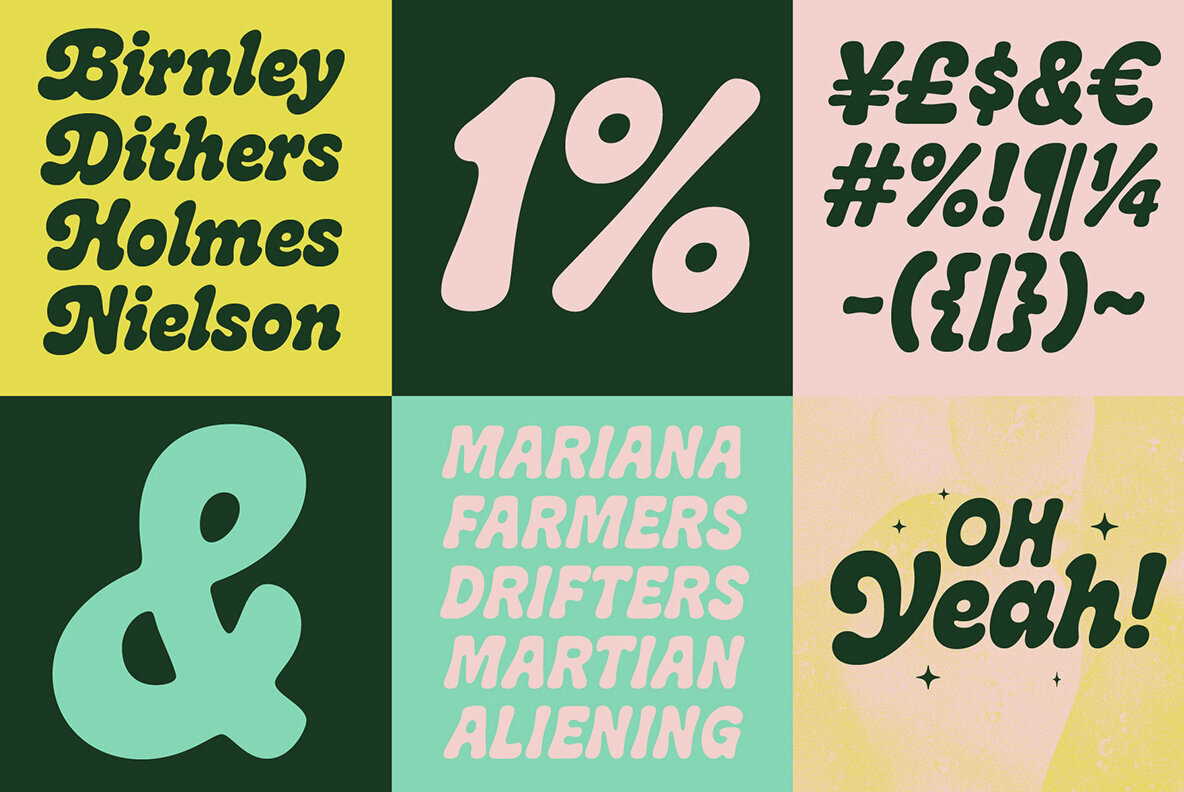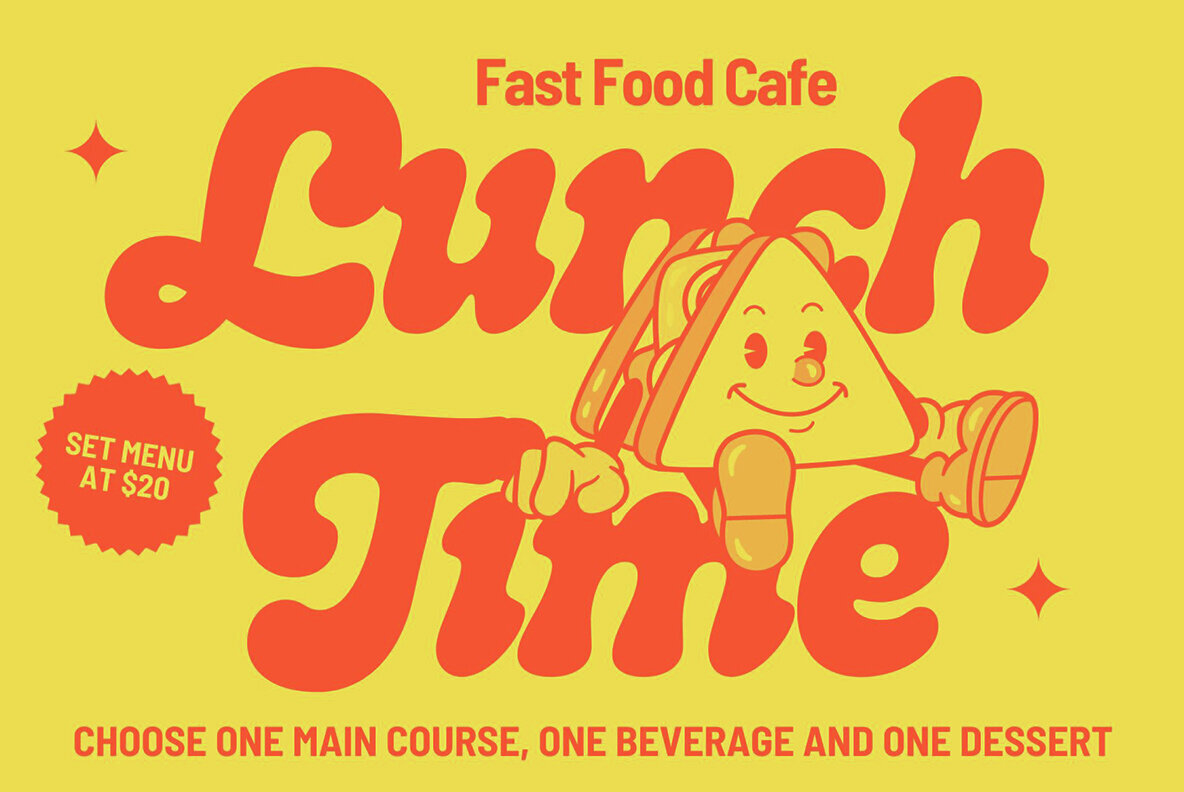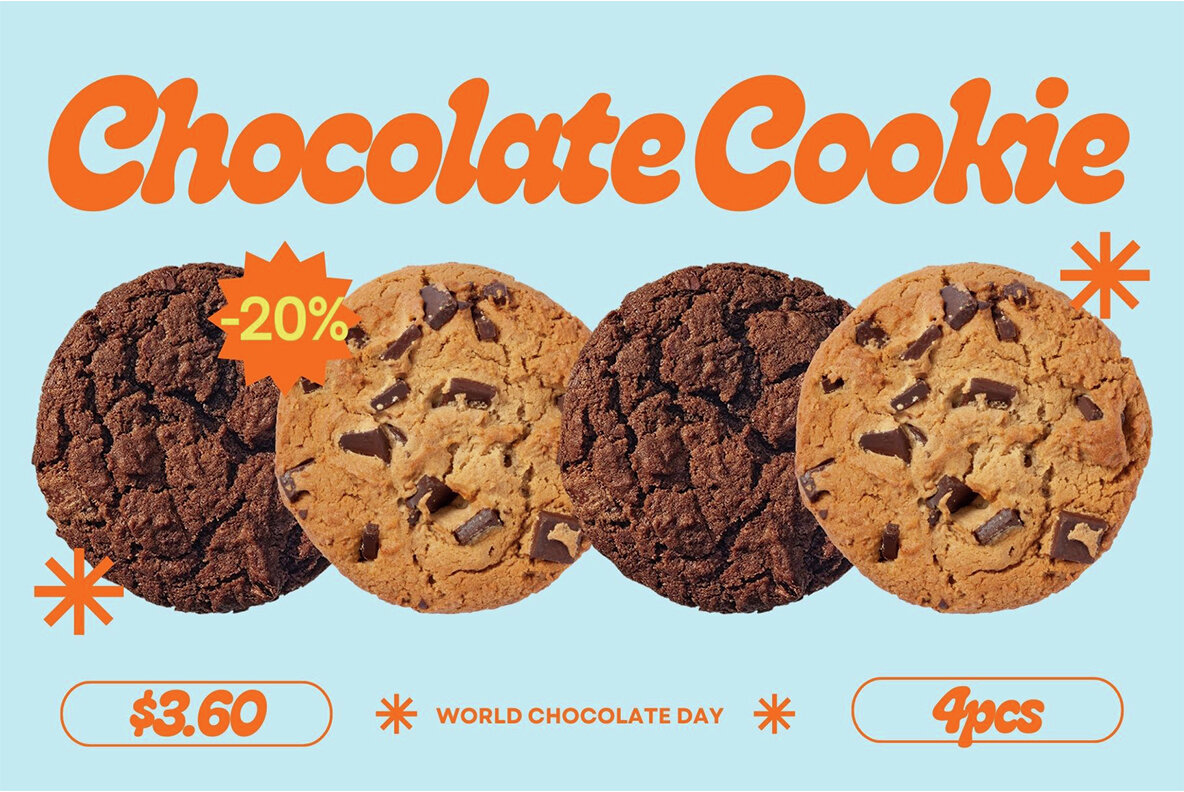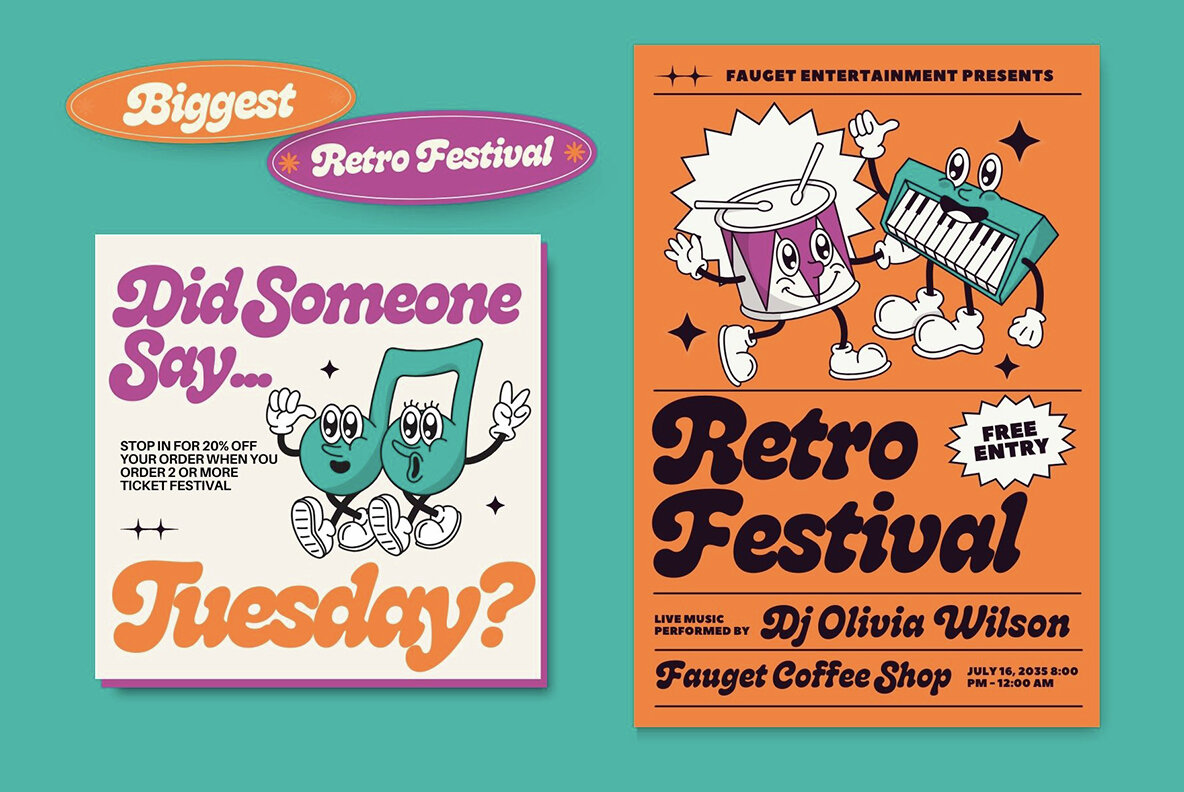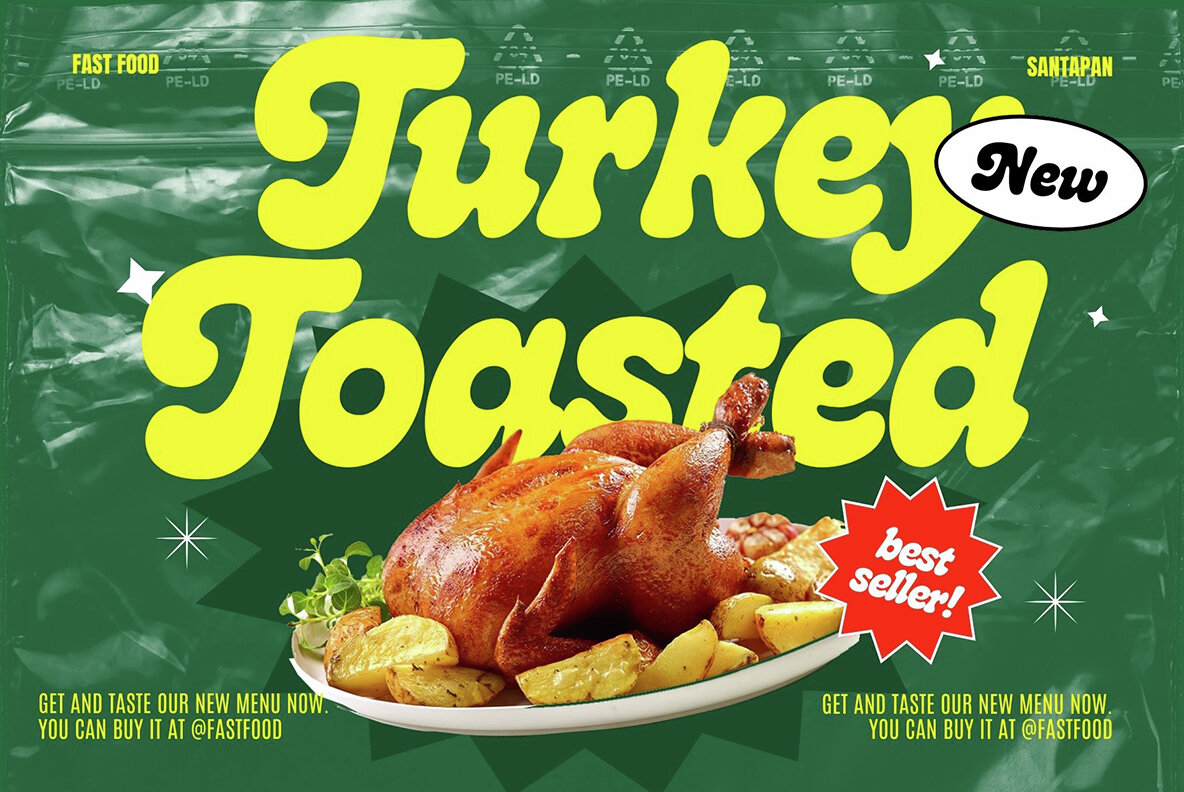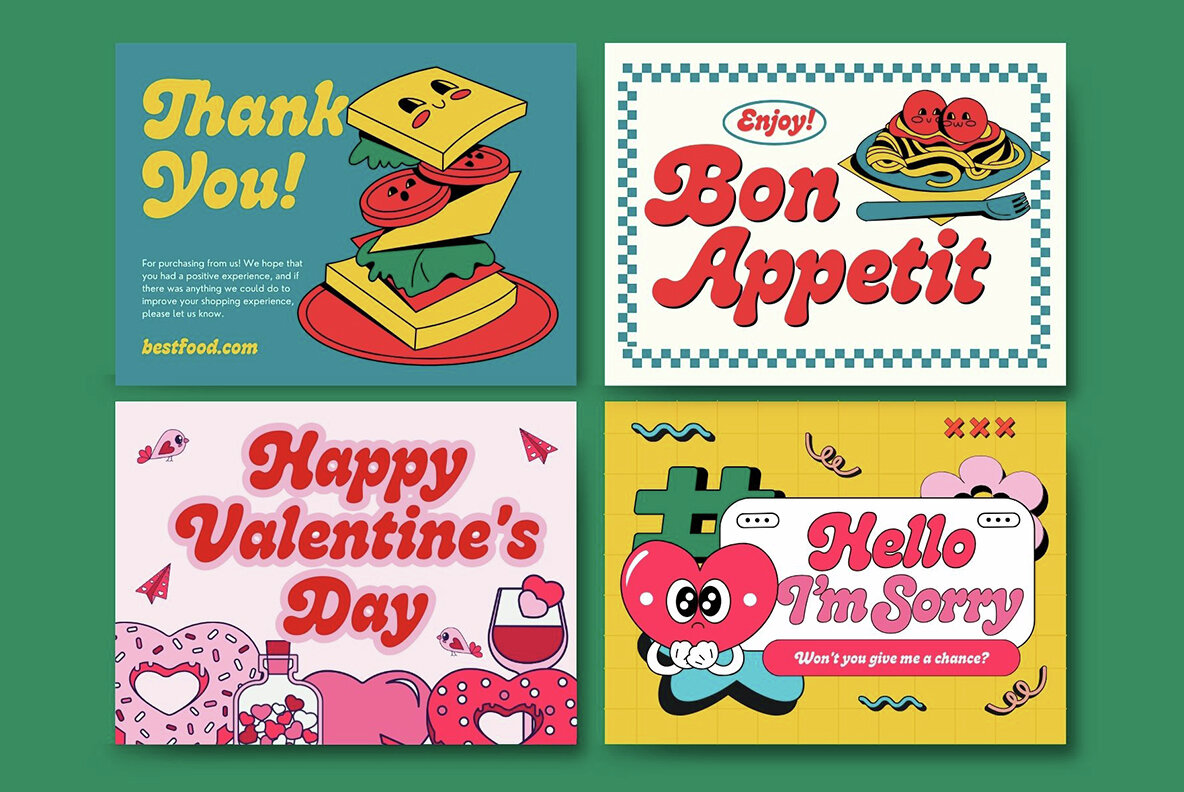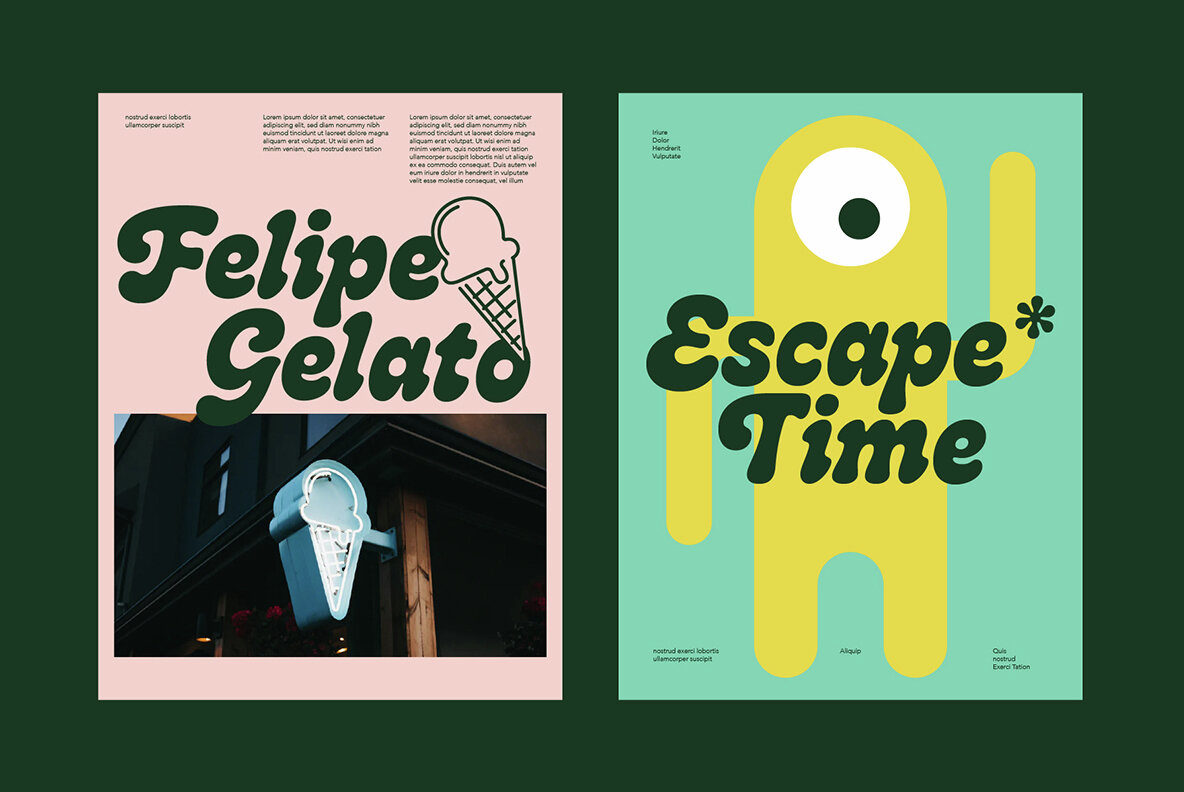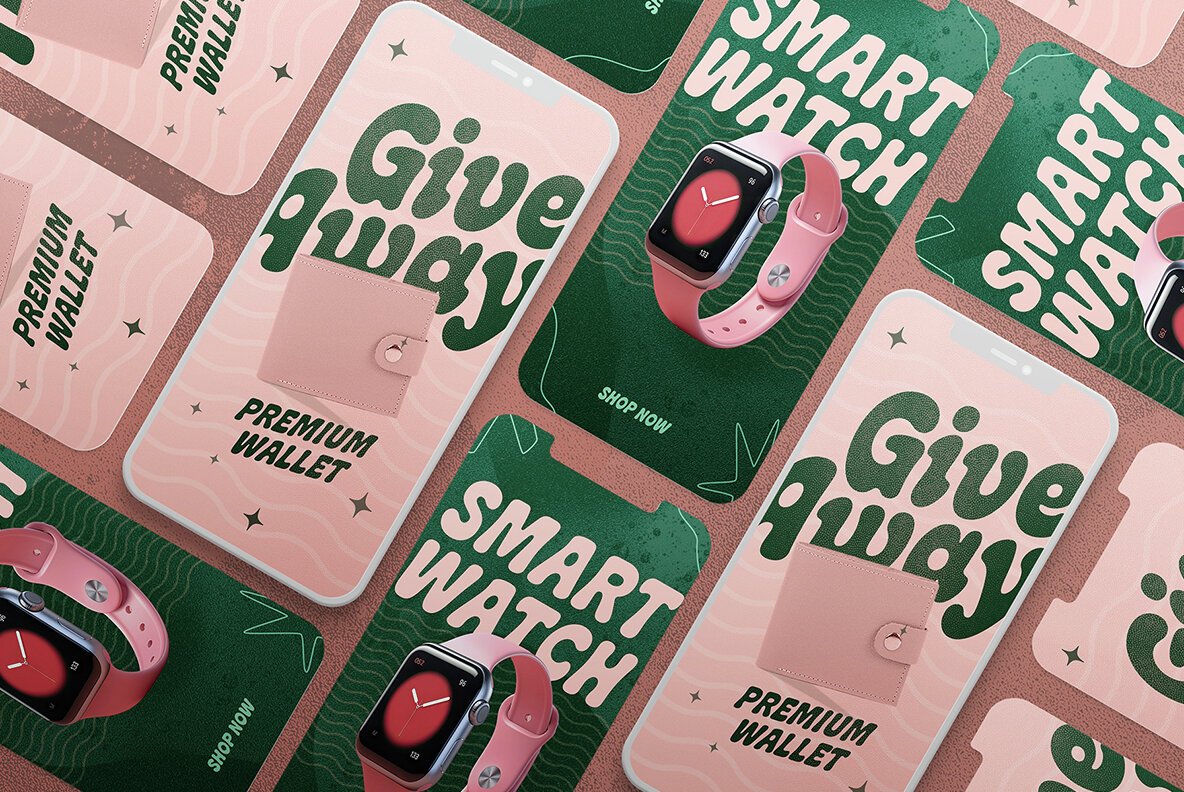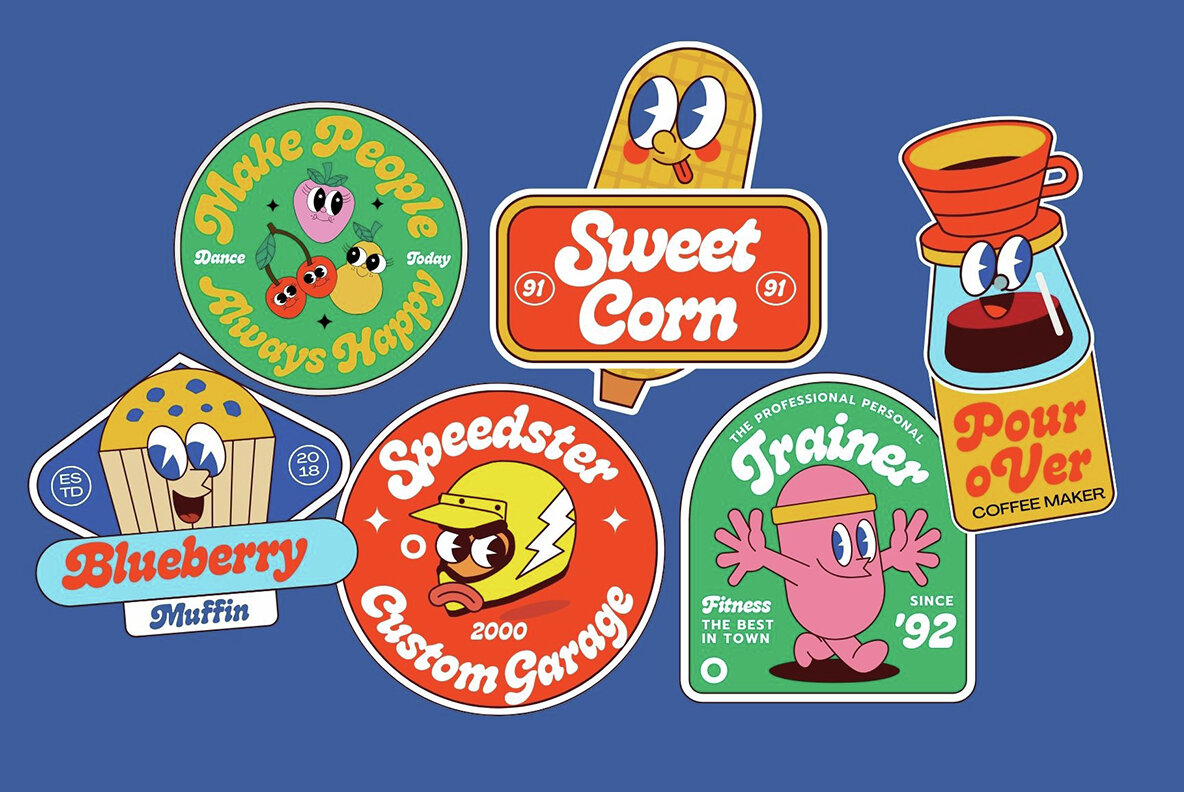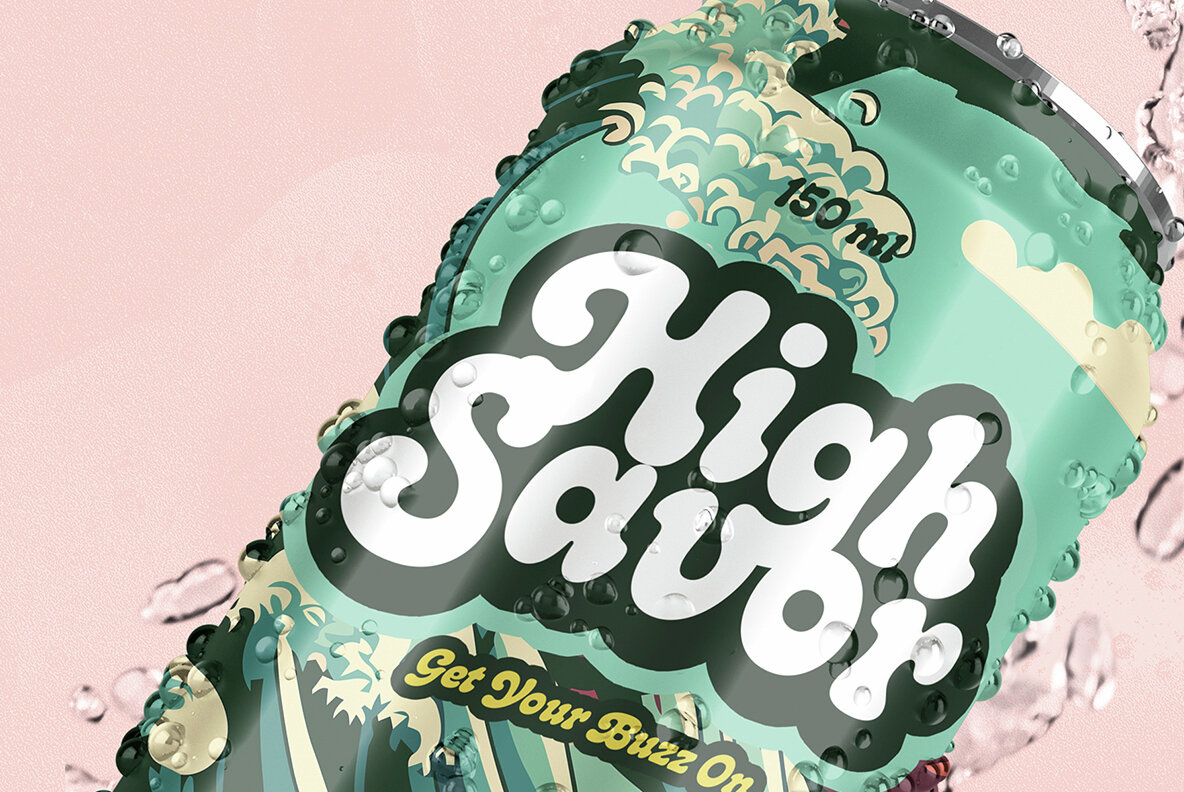
Melt Font
The Melt font family is a harmonious fusion of cursive elegance, bold confidence, and modern trends, making it perfect for eye-catching headlines. It seamlessly blends boldness with soft, rounded curves, exuding an irresistible charm. The Melt font family offers three distinct styles, each thoughtfully crafted to provide a range of creative possibilities. Whether designing for a trendy website, playful branding, or vibrant marketing materials, Melt's bold, cursive, and rounded style ensures you have the perfect tool to make a lasting impression. Embrace the charm of Melt and let your headlines stand out with a delightful blend of modernity and cuteness.Melt: A Captivating Blend of Boldness and Soft Curves